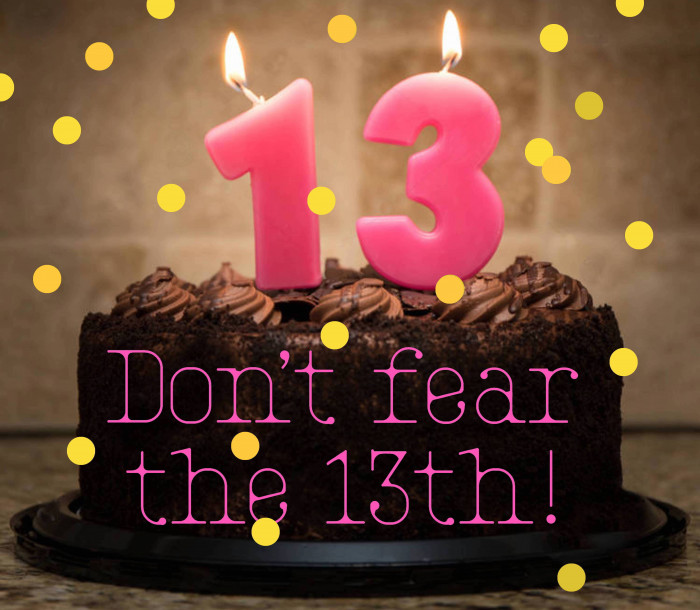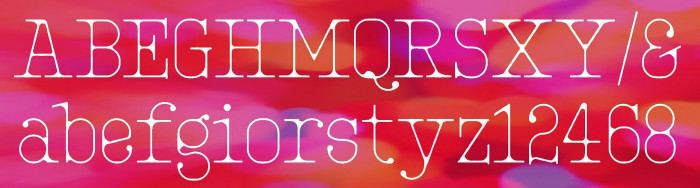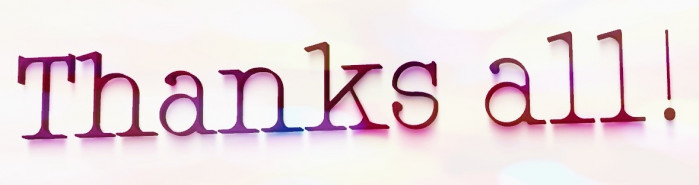
Happy 13th BD, FontStruct!
This is absolutely beautiful. A masterpiece, no doubt. 10/10
lovely design!
Your grave accent ("`") seems to be backwards…
Congratulations! FontStruct Staff have deemed your FontStruction worthy of special mention. “zigourny eYe/FS” is now a Top Pick.
Excellent font @elmoyenique and Happy Birthday FontStruct!
@elmoyenique - Reminscent of a very delicate typewriter. Another well-deserved TP, compañero!
Can you add cyrillic?